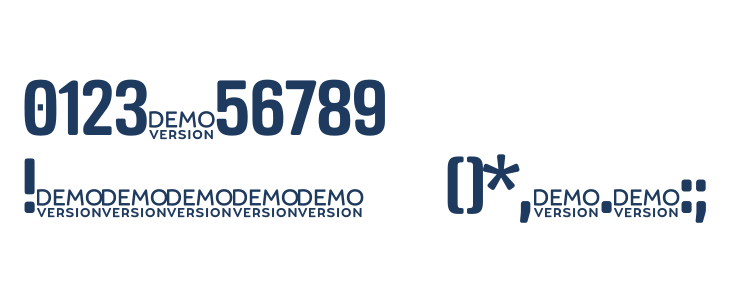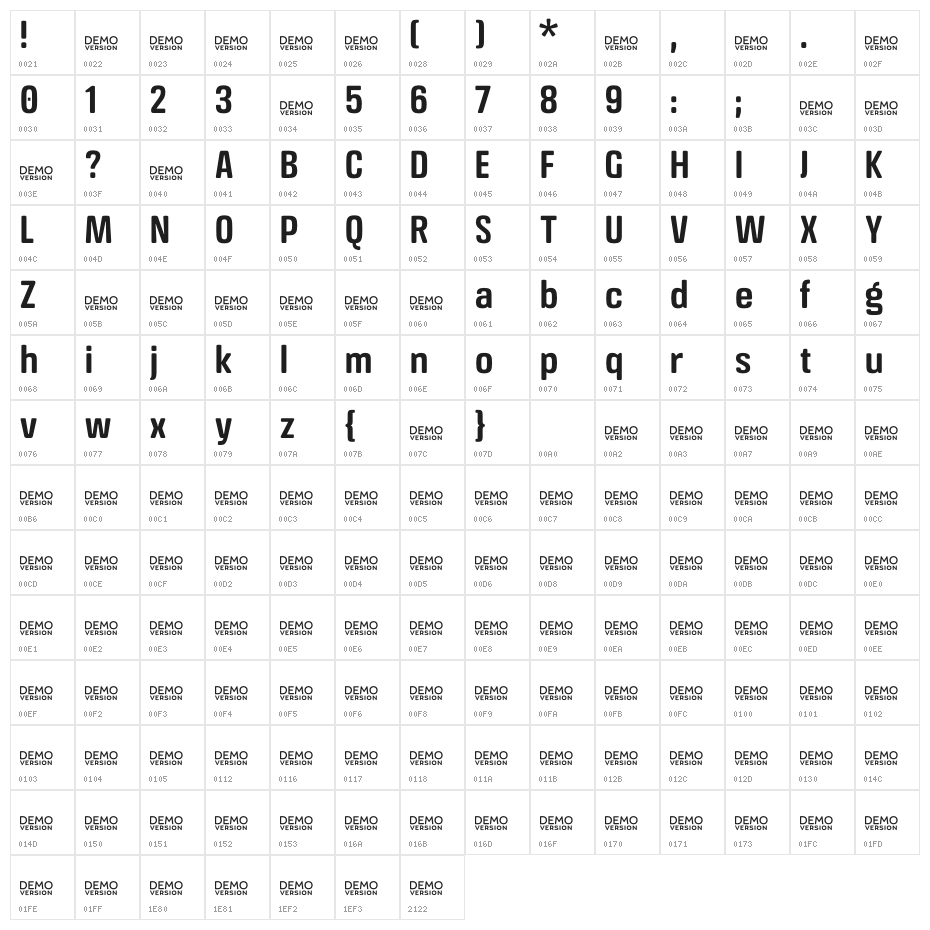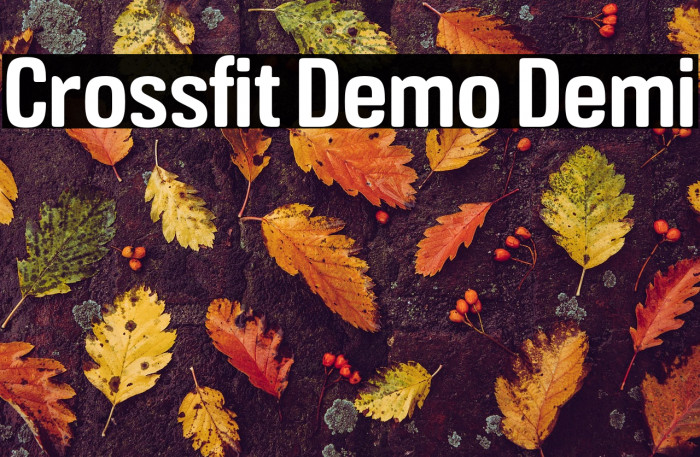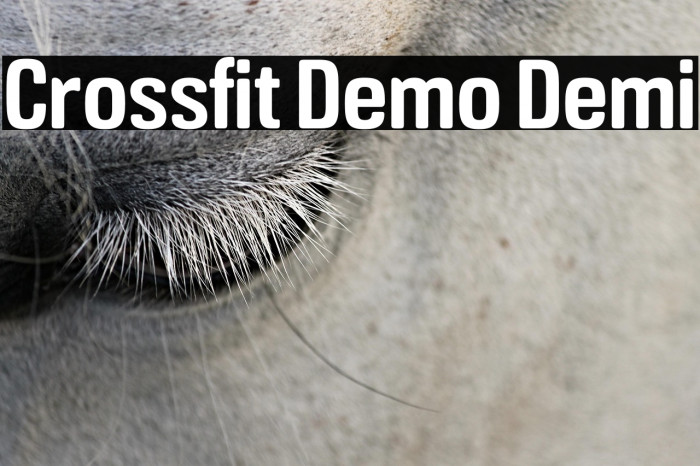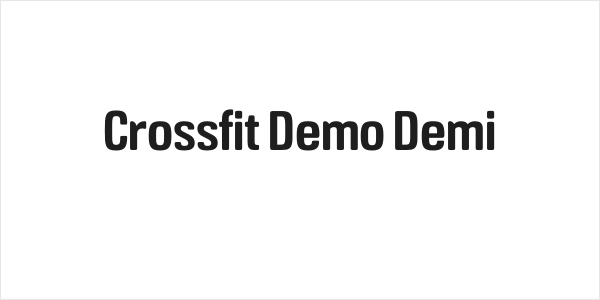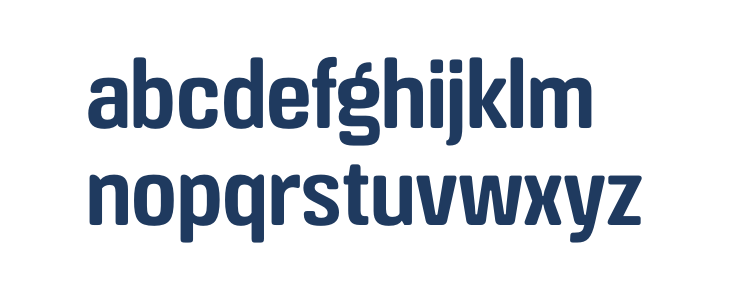
Crossfit Demo Demi Font
Crossfit Demo Demi Description
This font features a bold and modern sans-serif style with clean lines and a strong presence. The uppercase and lowercase letters are well-proportioned, offering a consistent and balanced look. The numerals are clear and easy to read, making them suitable for various applications. The special characters are distinct and maintain the overall aesthetic of the font. Its bold weight and normal width make it versatile for both digital and print media. The font's design is straightforward yet impactful, making it ideal for projects that require a contemporary and professional appearance.
Use CaseHeadlines, Logos, Branding
Proposed ProjectsIdeal for branding, advertising, headlines, and digital media.